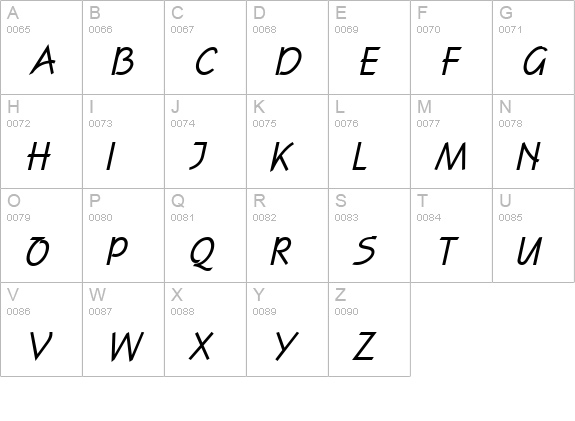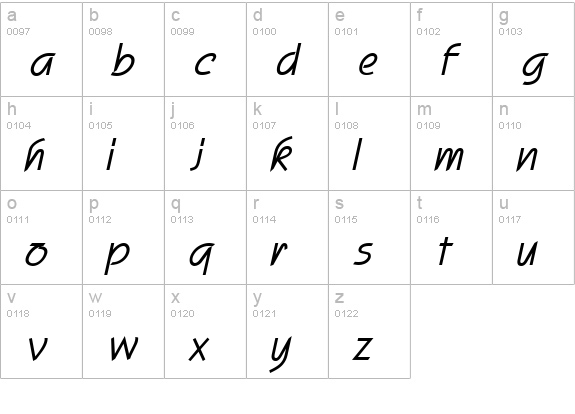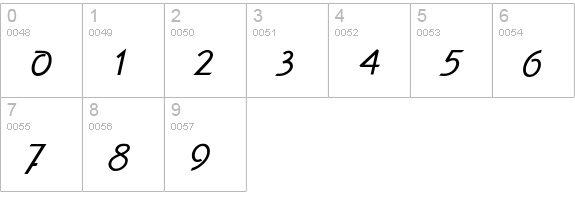
Scroll BoldItalic Font Details
Introducing Scroll BoldItalic, a stunning font that effortlessly combines elegance and boldness. This font is perfect for those who want to make a statement with their designs, as it exudes confidence and sophistication. With its unique combination of bold and italic styles, Scroll BoldItalic adds a touch of flair to any project. Whether you're designing a logo, creating a poster, or crafting a stylish invitation, this font will elevate your work to new heights. But that's not all - what sets Scroll BoldItalic apart is that it is freely available to download at FontsMarket.com. Yes, you read that right, this incredible font can be yours without spending a dime. FontsMarket.com understands the importance of accessibility and the impact that free resources can have on creativity. That's why they offer Scroll BoldItalic as a free download, allowing designers of all levels to unleash their creativity without any limitations. Featuring clean lines, sharp edges, and an unmistakable sense of style, Scroll BoldItalic is a font that demands attention. Its versatility makes it suitable for a wide range of design projects, from modern and minimalistic to bold and extravagant. It effortlessly captures attention while maintaining a sense of professionalism and elegance. So, why wait? Visit FontsMarket.com today and download Scroll BoldItalic for free. Experience the power of this font and let it take your designs to the next level. Whether you're a seasoned designer or just starting out, Scroll BoldItalic is the perfect addition to your font library. Don't miss out on this incredible opportunity to enhance your creativity and bring your designs to life. Get Scroll BoldItalic now and witness the magic it creates.